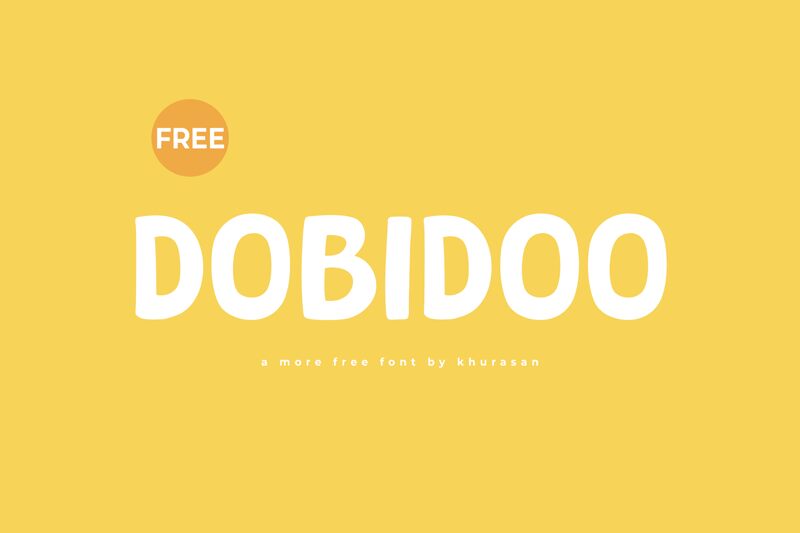
Dobidoo, a captivating display font crafted by Khurasan, exudes a delightful, cartoon-inspired essence. This bold and playful typeface showcases distinctive letterforms, each brimming with personality and character. The thick, expressive strokes and whimsical curves contribute to a visually striking and endearing aesthetic, instantly capturing the viewer's attention. Dobidoo's unique style evokes a sense of playfulness and approachability, making it an excellent choice for a wide range of design applications.
Dobidoo's versatility shines through its ability to seamlessly integrate into various design contexts. Its bold and expressive qualities make it an ideal selection for attention-grabbing headlines, vibrant branding, and captivating children's illustrations. The font's playful nature also lends itself well to packaging design, product labeling, and marketing materials that aim to create a fun, memorable experience for the audience.